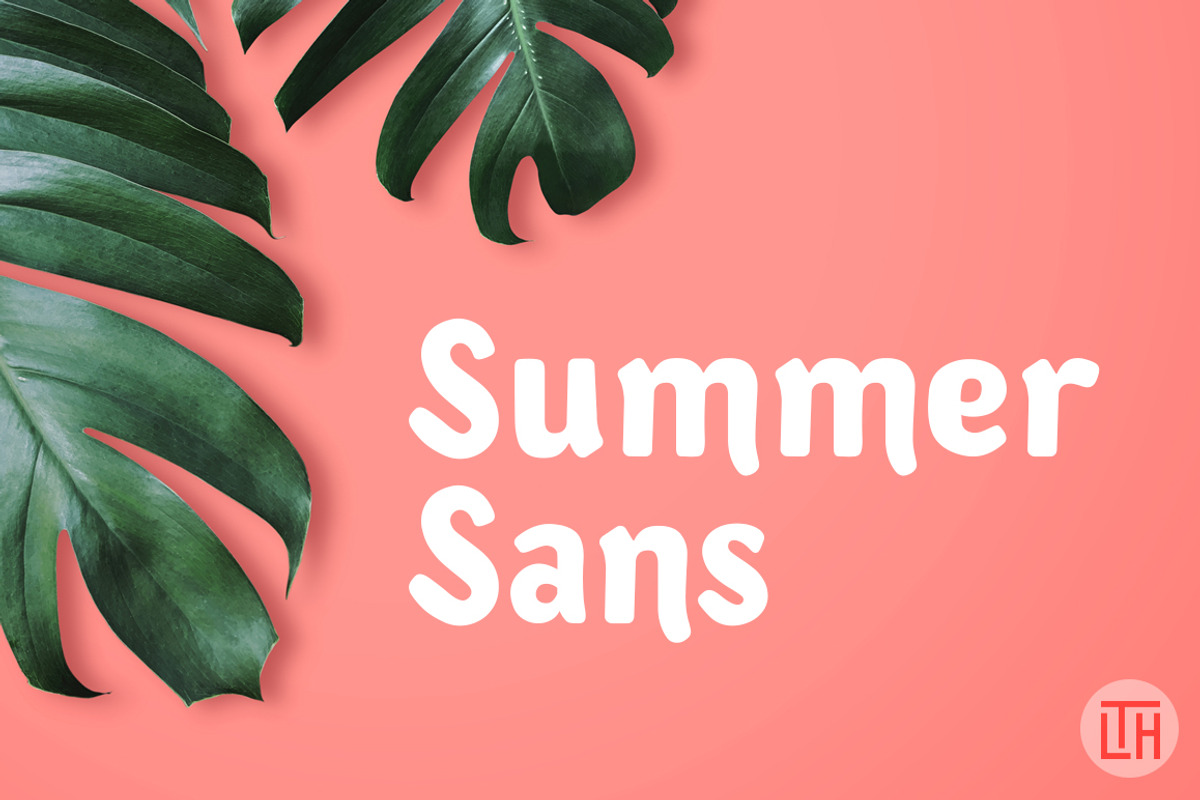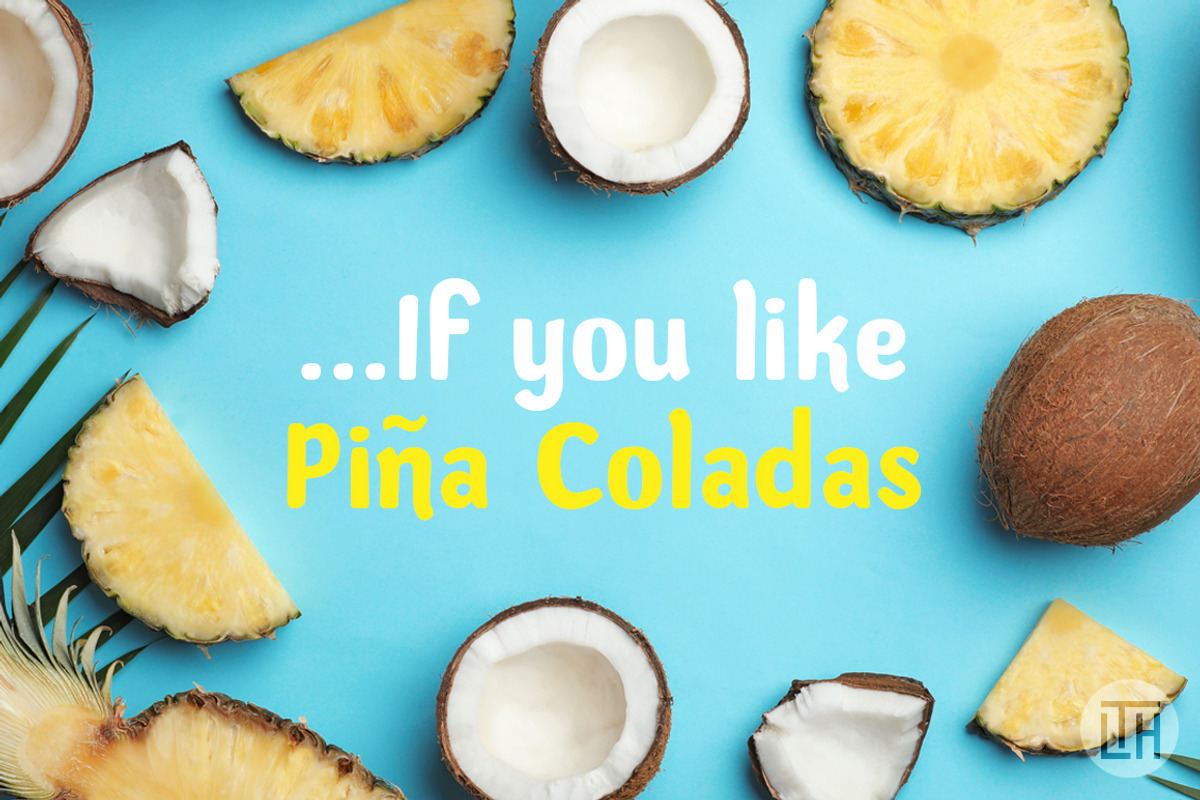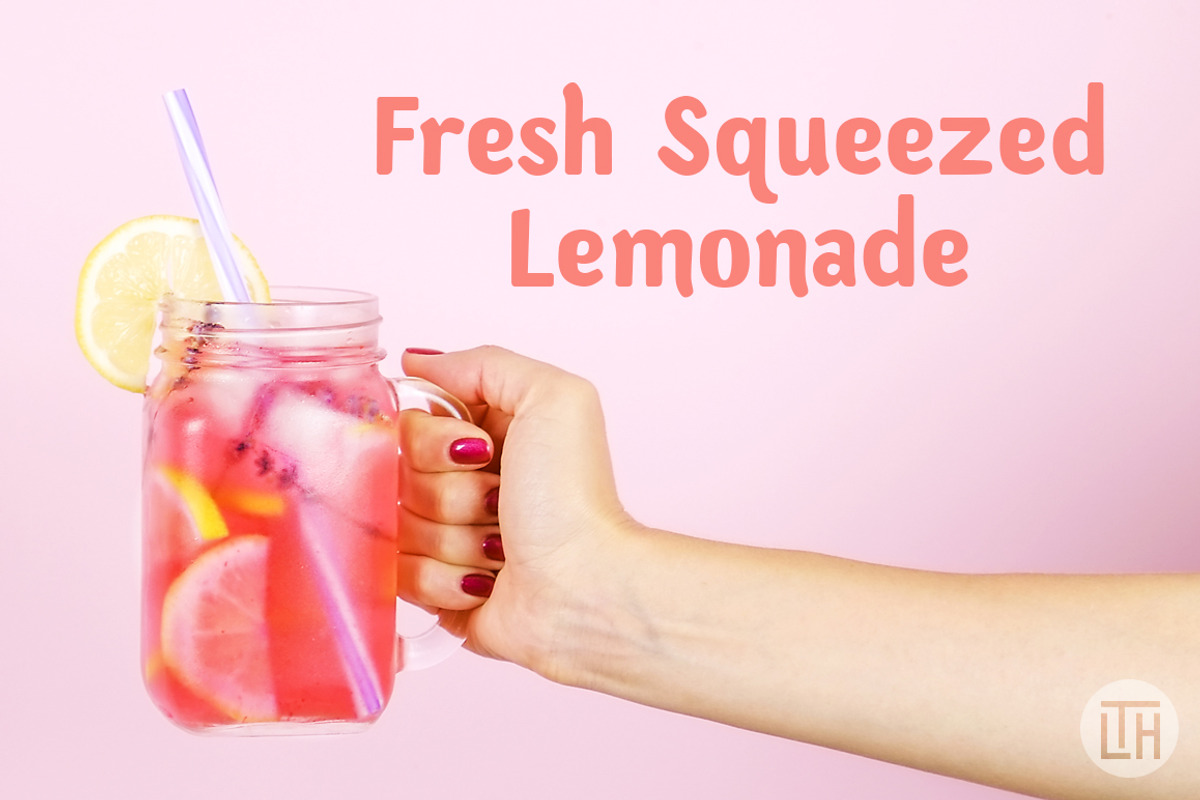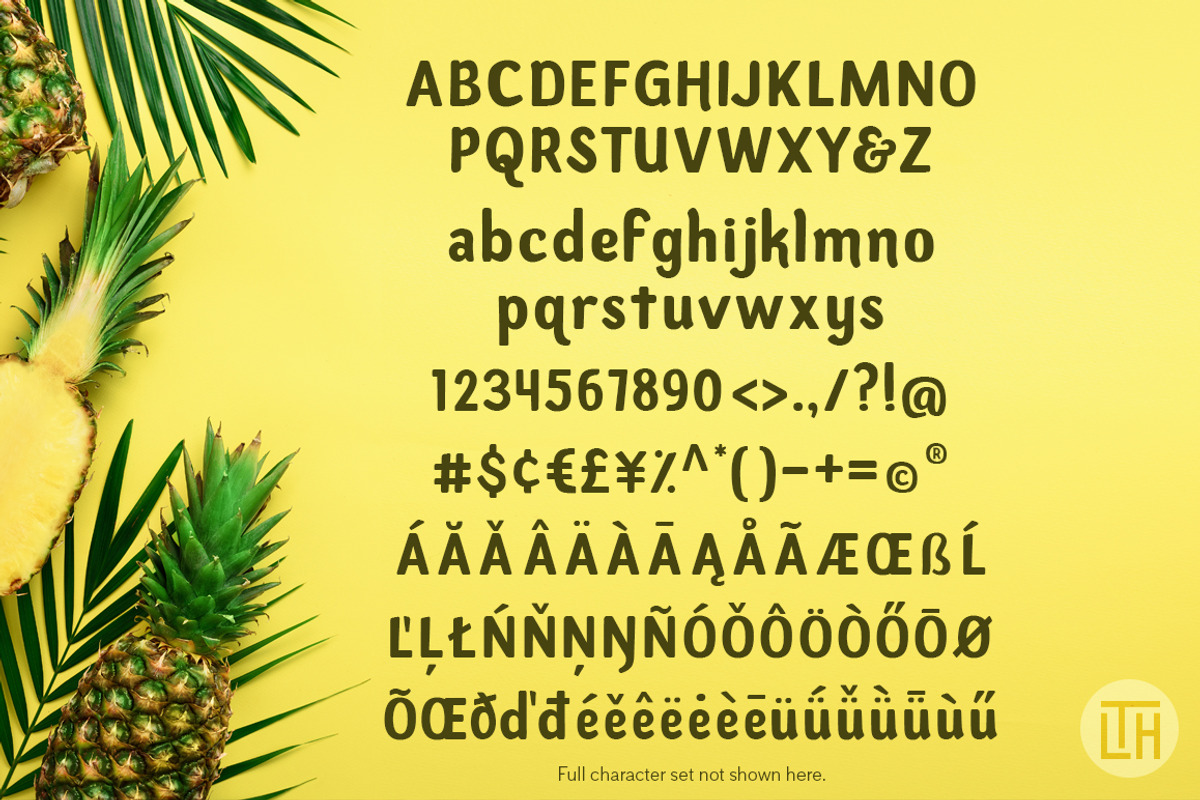
Summer Sans
NEW RELEASE, just in time for Summer! Summer Sans is a fun display font created with love, great for headlines, pull-quotes, social media posts, or anything you like!
Summer Sans comes with a full set of characters supporting Eastern and Western European languages. This rounded font will make a playful addition to your collection, not just great in the Summer but all year-round!